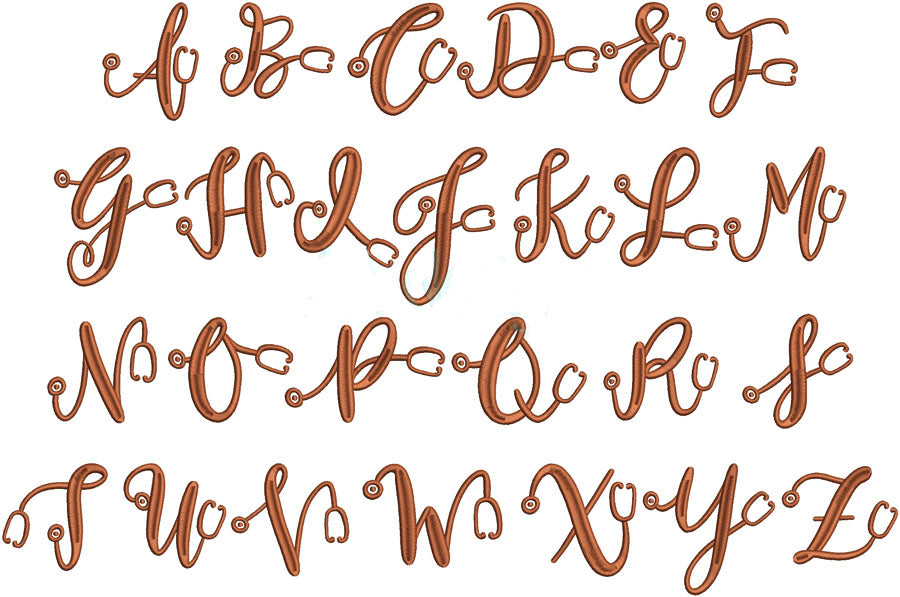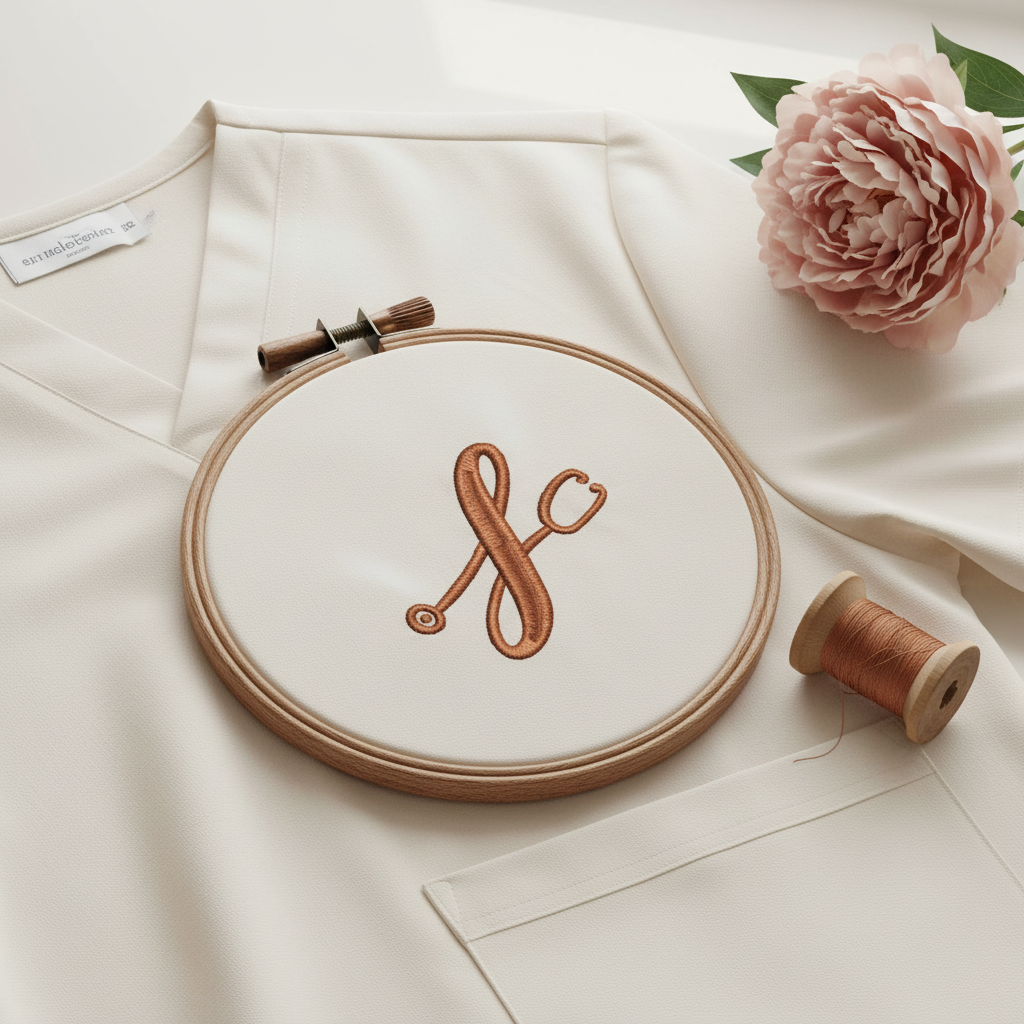
Celebrate the heart of healthcare with the Stethoscope Embroidery Script Font. This charming digital embroidery font is designed for nurse gifts, medical-themed projects, scrubs, tote bags, and personalized keepsakes.